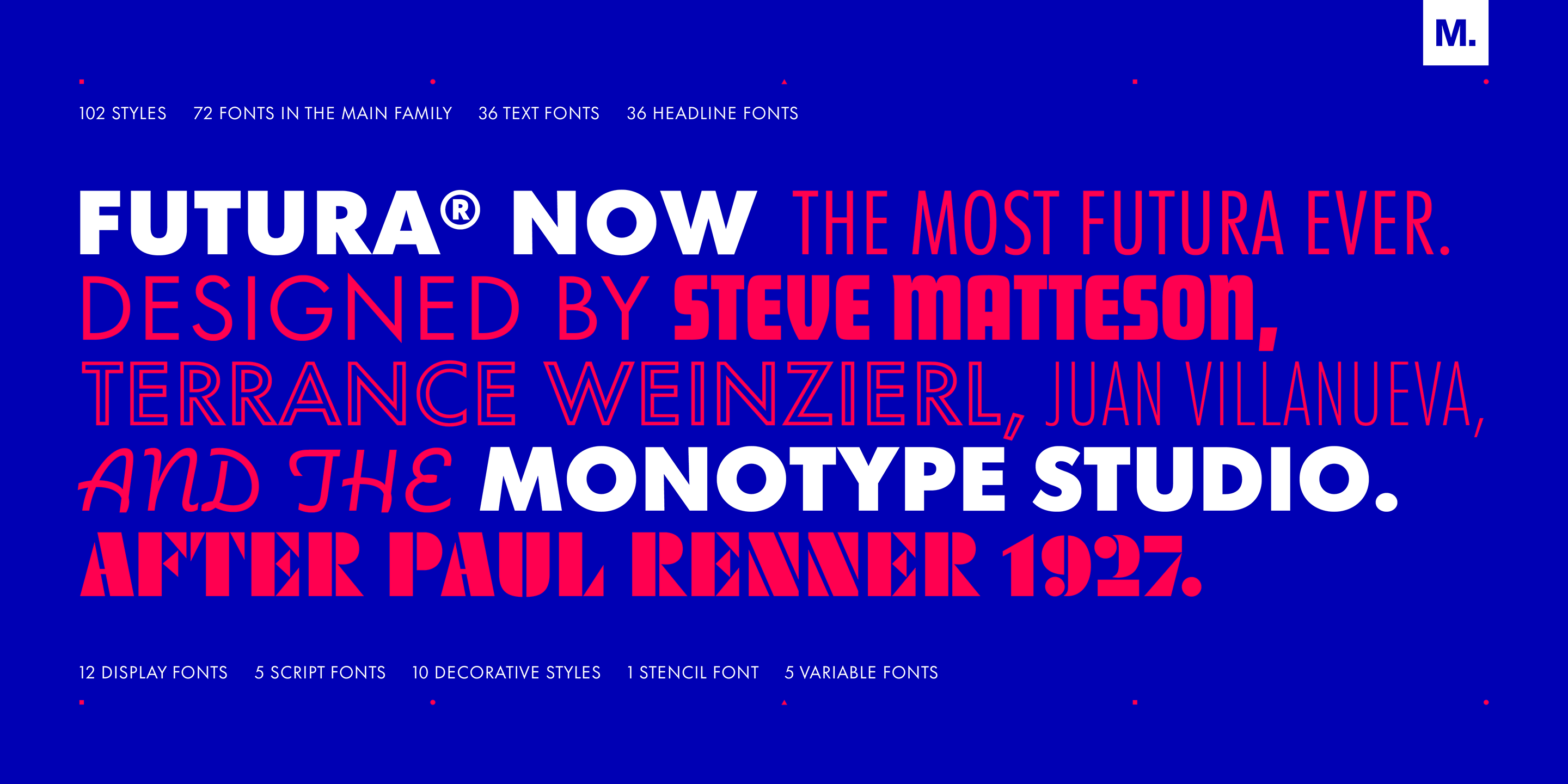
Futura Now Font is ideal for modern brand identities, architectural presentations, luxury fashion branding, minimalist poster designs, contemporary art exhibitions, high-end product packaging, avant-garde marketing campaigns, design agency portfolios, progressive corporate communications, and cutting-edge digital interfaces. This revolutionary geometric sans-serif brings Bauhaus modernism and timeless design philosophy to sophisticated contemporary applications.
What makes Futura Now Font so exciting is its perfect embodiment of geometric purity and modernist design principles that have influenced nearly a century of progressive visual communication and continue to define contemporary design excellence. The font features mathematically precise letterforms with pure geometric construction and rational proportions that reflect the visionary ideals of the Bauhaus movement and German design philosophy. Its distinctive characteristics include perfect circles, precise angles, and consistent geometric relationships that create immediate visual impact while maintaining exceptional legibility and timeless aesthetic appeal. The font's revolutionary heritage and proven performance in prestigious design applications make Futura Now Font the ultimate choice for brands seeking to communicate innovation, sophistication, and progressive design thinking.
The Futura Now Font family includes comprehensive weights and styles: Thin, Light, Book, Medium, Demi, Bold, and Heavy variations, each available in Roman and Oblique cuts. The extensive character set encompasses complete Latin alphabet support with modernist symbols, mathematical operators, geometric elements, currency symbols, and broad international language coverage including Central European characters. Professional features include contextual alternates that enhance geometric appearance, optical adjustments for different applications, expert spacing that maintains Bauhaus principles, and refined character construction that ensures perfect geometric harmony across all weights and applications.
Whether you're creating luxury brand identities, architectural communications, or avant-garde design projects, Futura Now Font Free Download provides the iconic typography that represents the pinnacle of modernist design achievement and contemporary visual sophistication. Its exceptional versatility makes it suitable for both large-scale environmental graphics and refined detail applications, while its legendary status ensures instant recognition and lasting impact that resonates with design-conscious audiences worldwide. The font's combination of historical significance and contemporary functionality makes it indispensable for architects, luxury brands, design agencies, and any organization seeking typography that communicates the progressive vision, geometric perfection, and timeless modernist principles that continue to define excellence in contemporary design and visual communication.